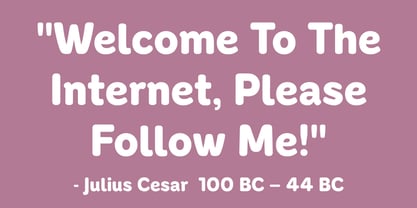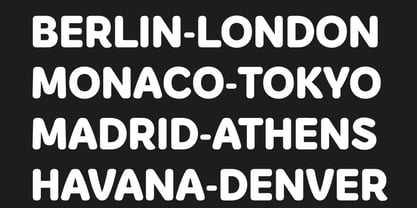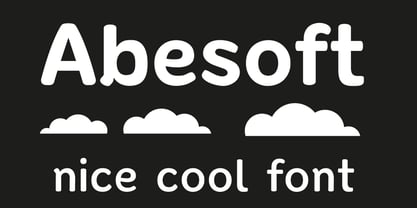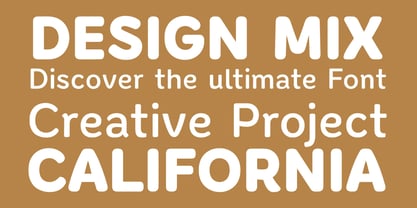
Abesoft
by Andfonts
The Abesoft Font Family was designed by Andrii Shevchyk and published by Andfonts. Abesoft contains 4 styles and family package options. More about this family
This rounded sans serif font brings together smooth curves and a playful spirit. With glyphs included, it supports multiple languages and gives you freedom for various creative tasks. Its soft and friendly look makes it a natural choice for children’s books, comics, story covers, and any design that needs warmth and positivity. The rounded shapes create a cheerful, approachable feel, while still keeping a clean and modern structure. Use it for titles, headlines, logos, branding, or everyday creative projects where you want to balance clarity with fun. Versatile, friendly, and stylish – this font is designed to make your work stand out with charm.
Designers: Andrii Shevchyk
Foundry: Andfonts